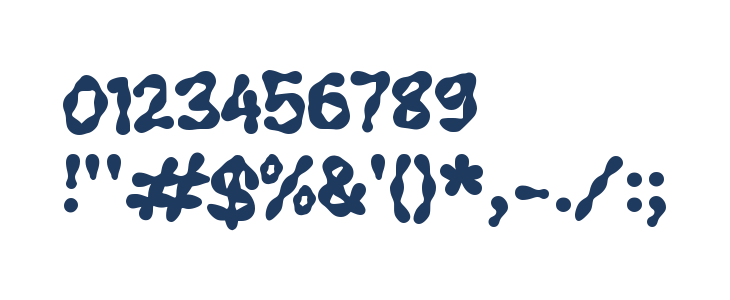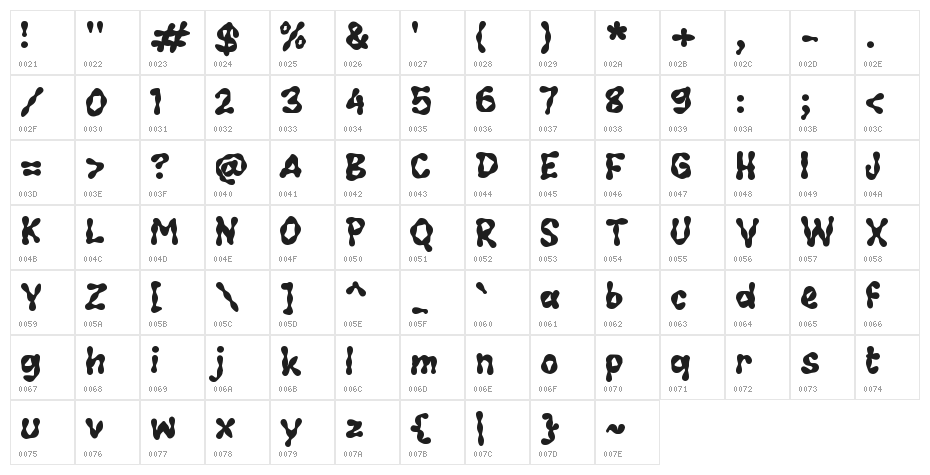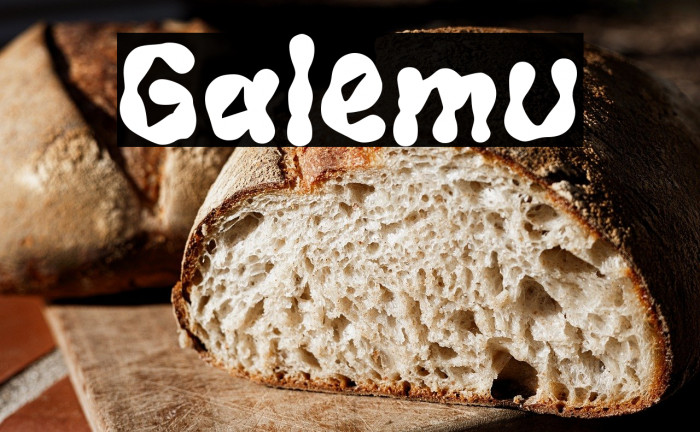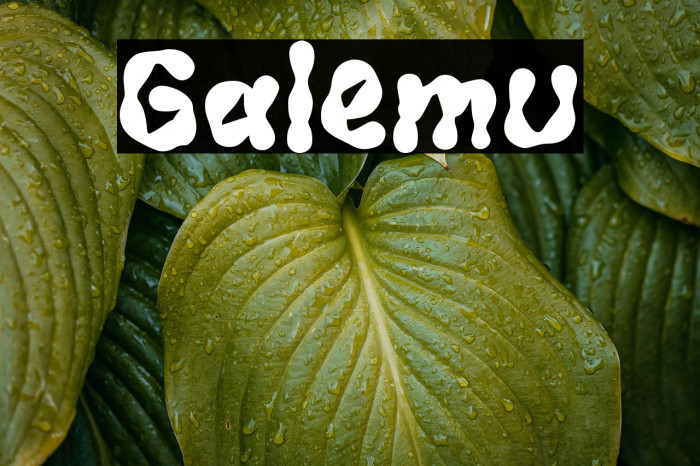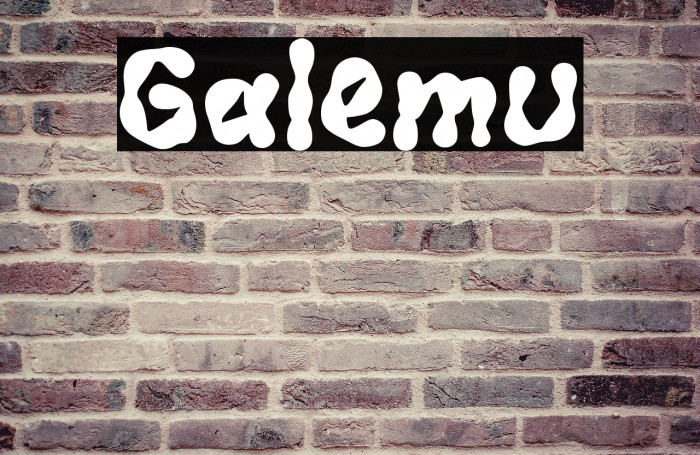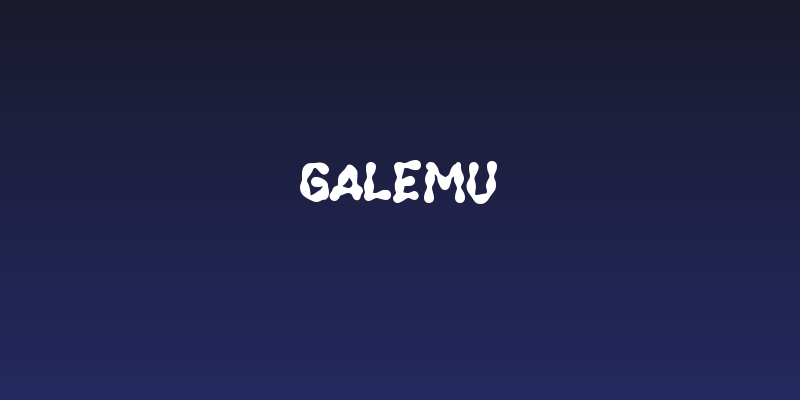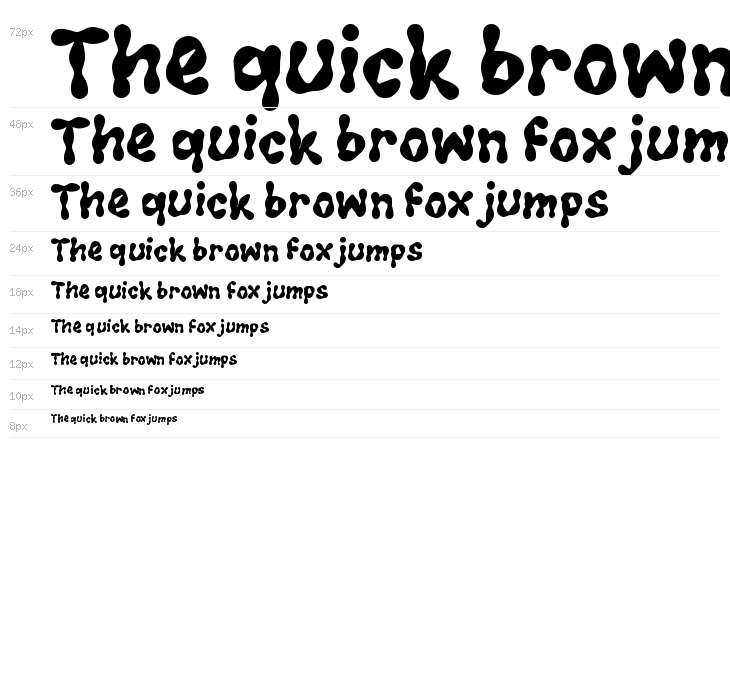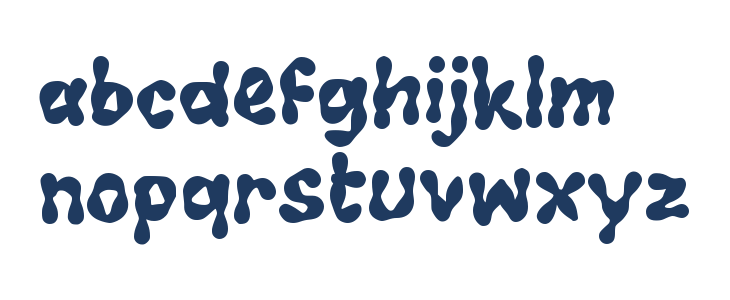
Galemu Font
Galemu Description
This font features a bold and playful design with a distinctly organic feel. The characters are rounded and irregular, giving them a hand-drawn appearance. The strokes are thick and uneven, contributing to a whimsical and informal style. The font maintains a consistent weight throughout, with each letter exhibiting a unique, almost blob-like form. This style is reminiscent of artistic and creative projects, where a sense of fun and individuality is desired. The numbers and special characters follow the same playful theme, ensuring a cohesive look across all elements.
| Overall Style | Playful, Artistic |
| Proposed Projects | Ideal for children's books, creative posters, playful branding, and artistic projects. |